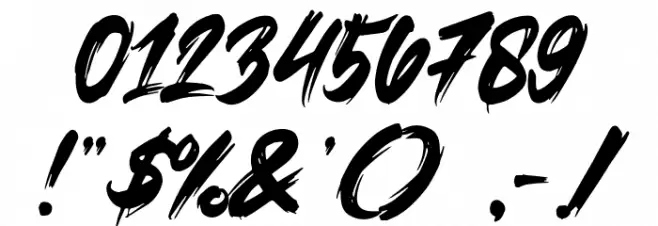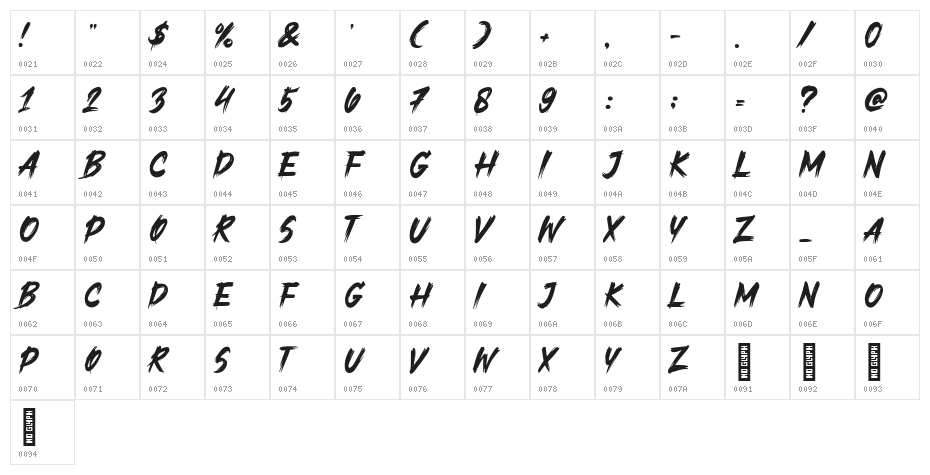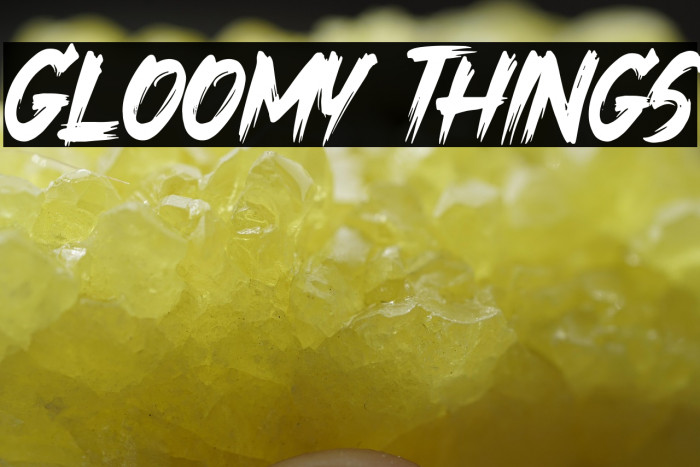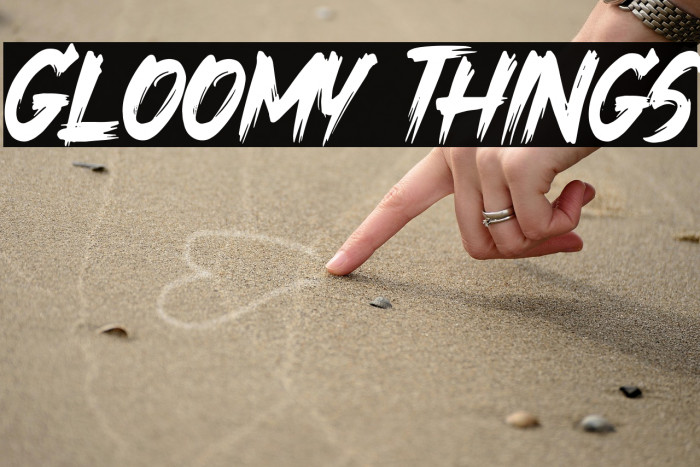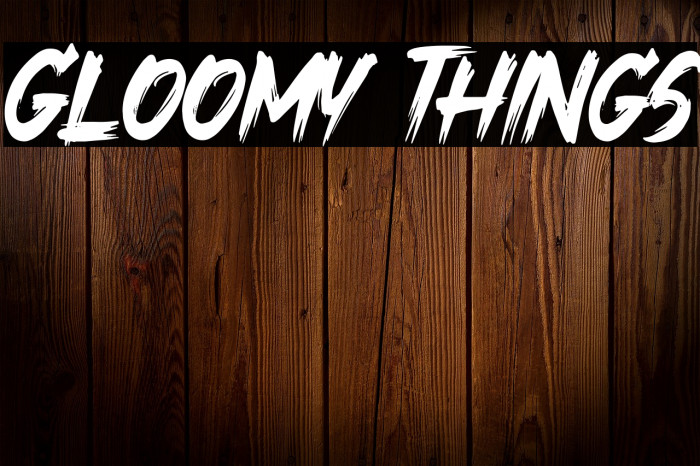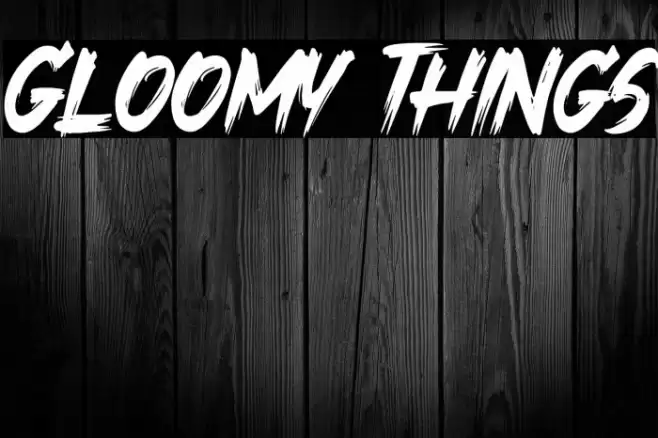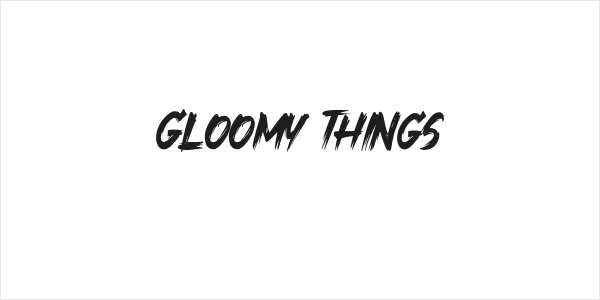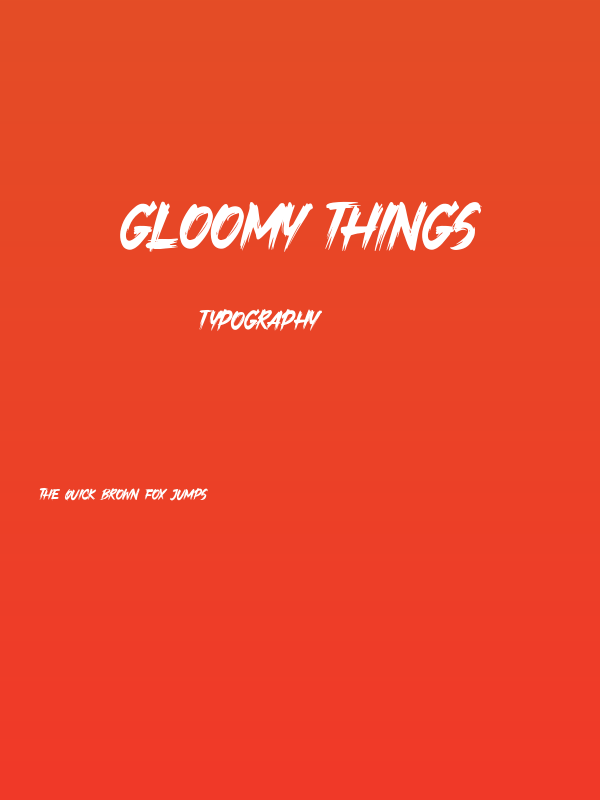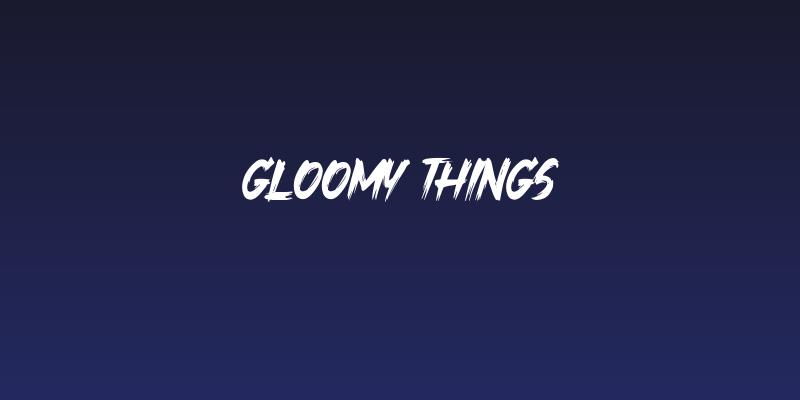
Gloomy Things Font
Gloomy Things Description
This font exudes a bold and dynamic energy with its brush-like strokes and sharp edges. Each character is crafted with an expressive flair, giving it a hand-painted appearance that is both edgy and artistic. The uppercase and lowercase letters maintain a consistent style, with exaggerated angles and a slightly chaotic feel that adds to its unique charm. Numbers and special characters follow the same aesthetic, ensuring a cohesive look across all text. The font's design is perfect for projects that require a strong visual impact, such as posters, album covers, or branding for edgy and creative industries.